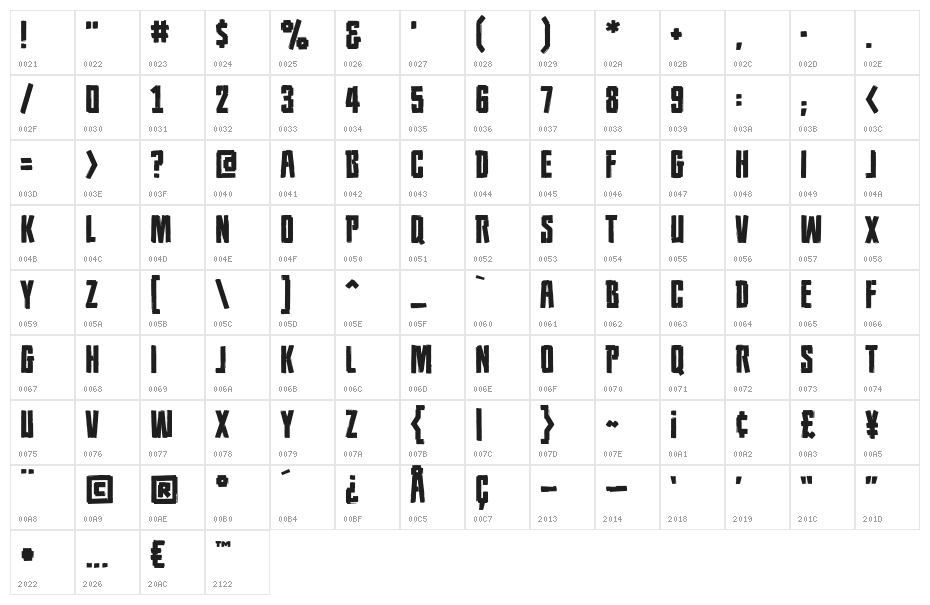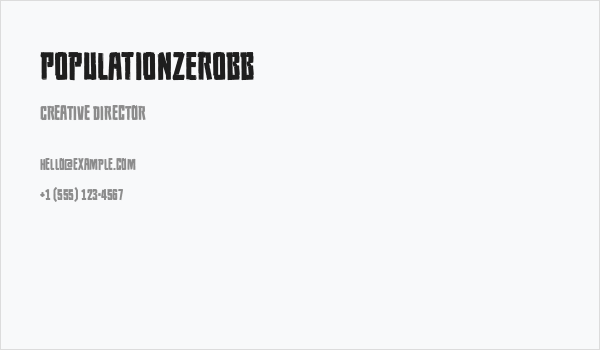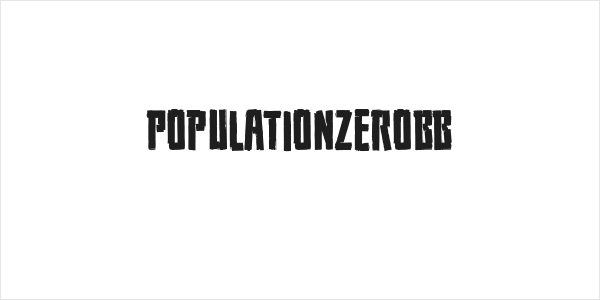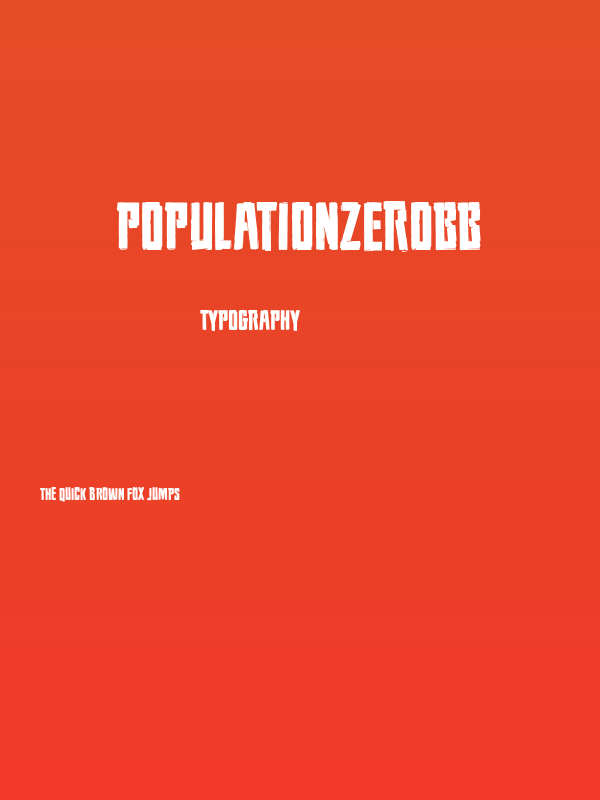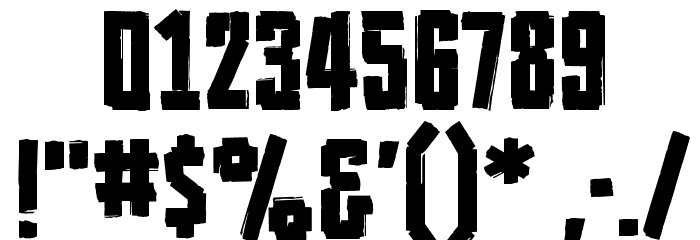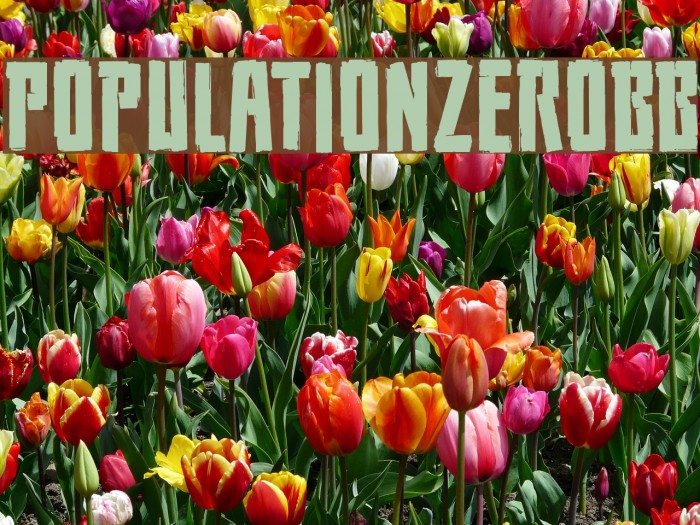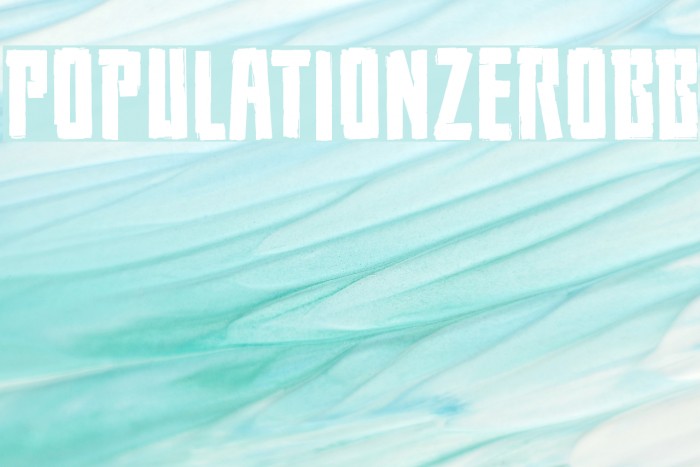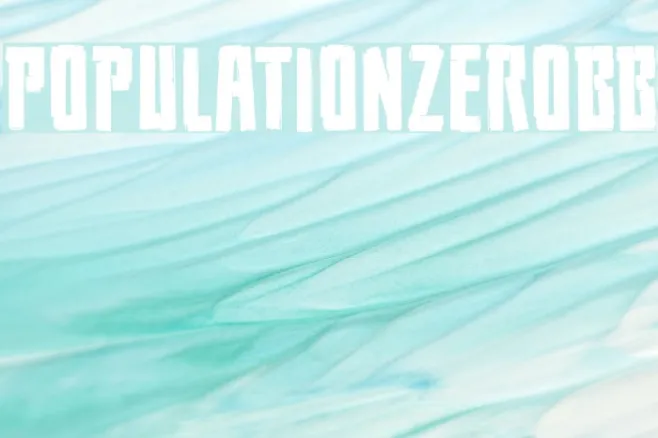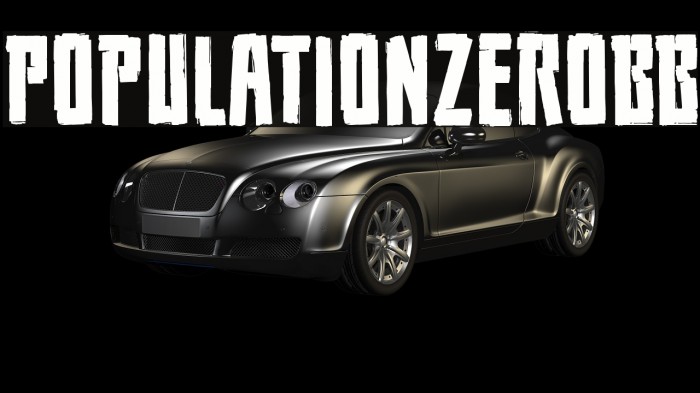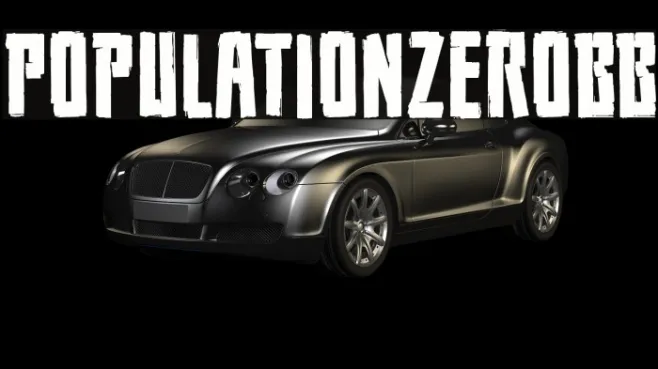
PopulationZeroBB Font
PopulationZeroBB Description
This font features a bold, distressed style with a rugged, textured appearance. Each character is uniquely crafted to give a sense of wear and tear, making it ideal for projects that require a gritty, urban feel. The uppercase letters are prominent and commanding, while the numbers and special characters maintain the same boldness and texture. The font's design suggests a sense of urgency and rawness, perfect for capturing attention in dynamic and energetic contexts.
| Overall Style | Urban, Gritty, Energetic |
| Proposed Projects | Ideal for posters, album covers, video game graphics, and branding that requires a gritty, urban aesthetic. |